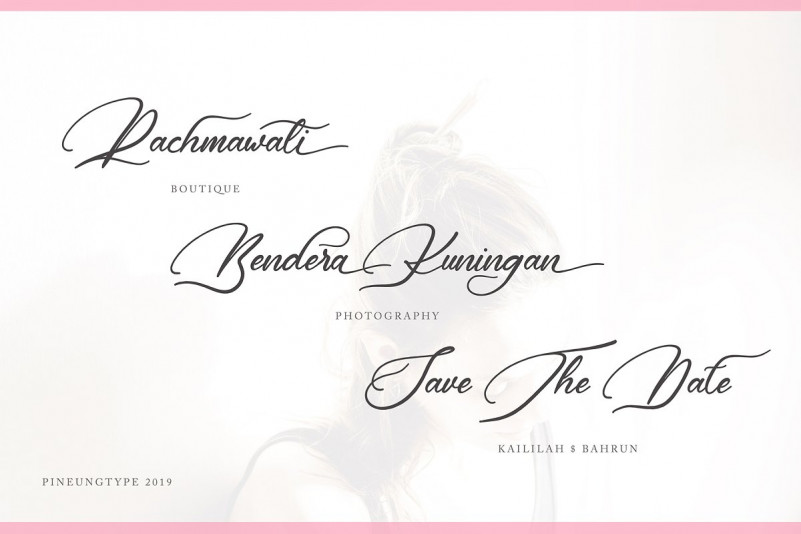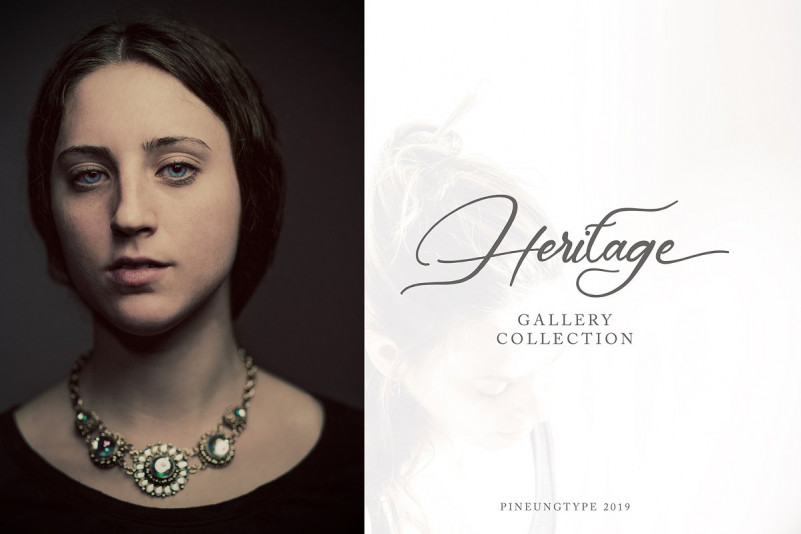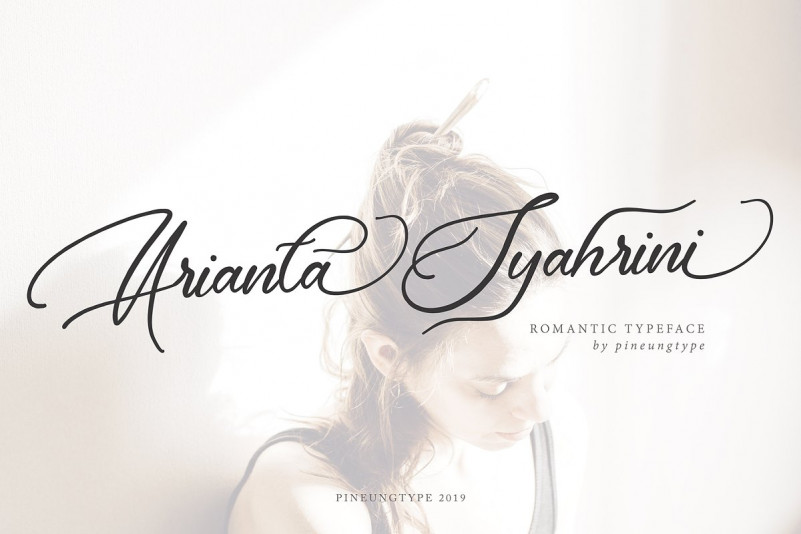
Arianta Syahrini Font
Arianta Syahrini romantic font Handwritten style, this font will perfect for many different project ex: quotes, logo, blog header, poster, banding, fashion, apparel, letter, invitation, stationery, etc…